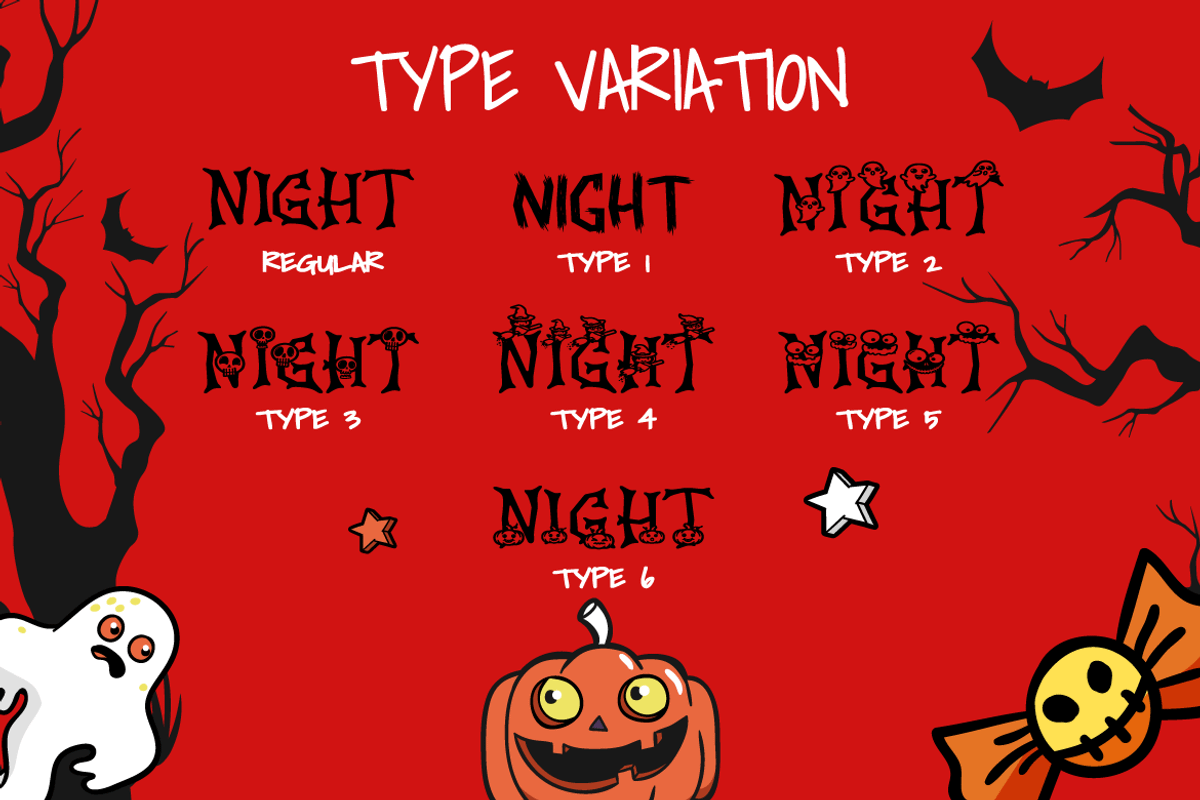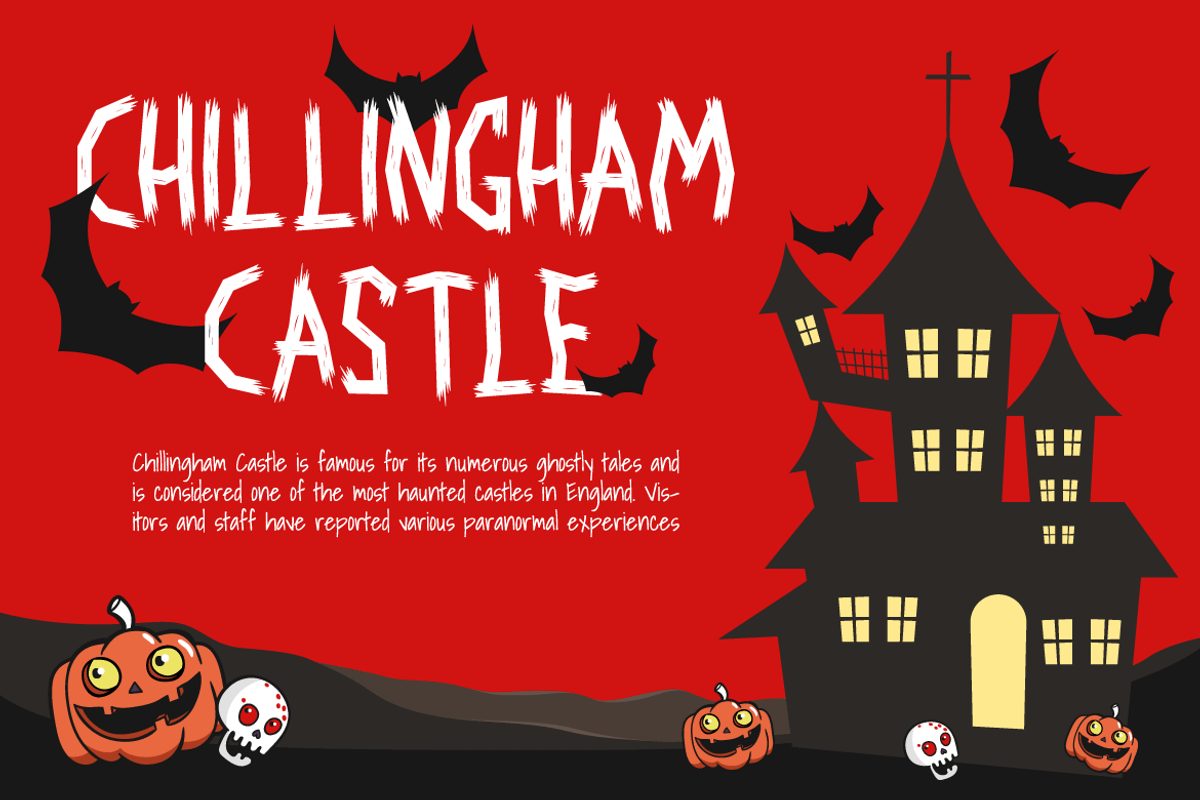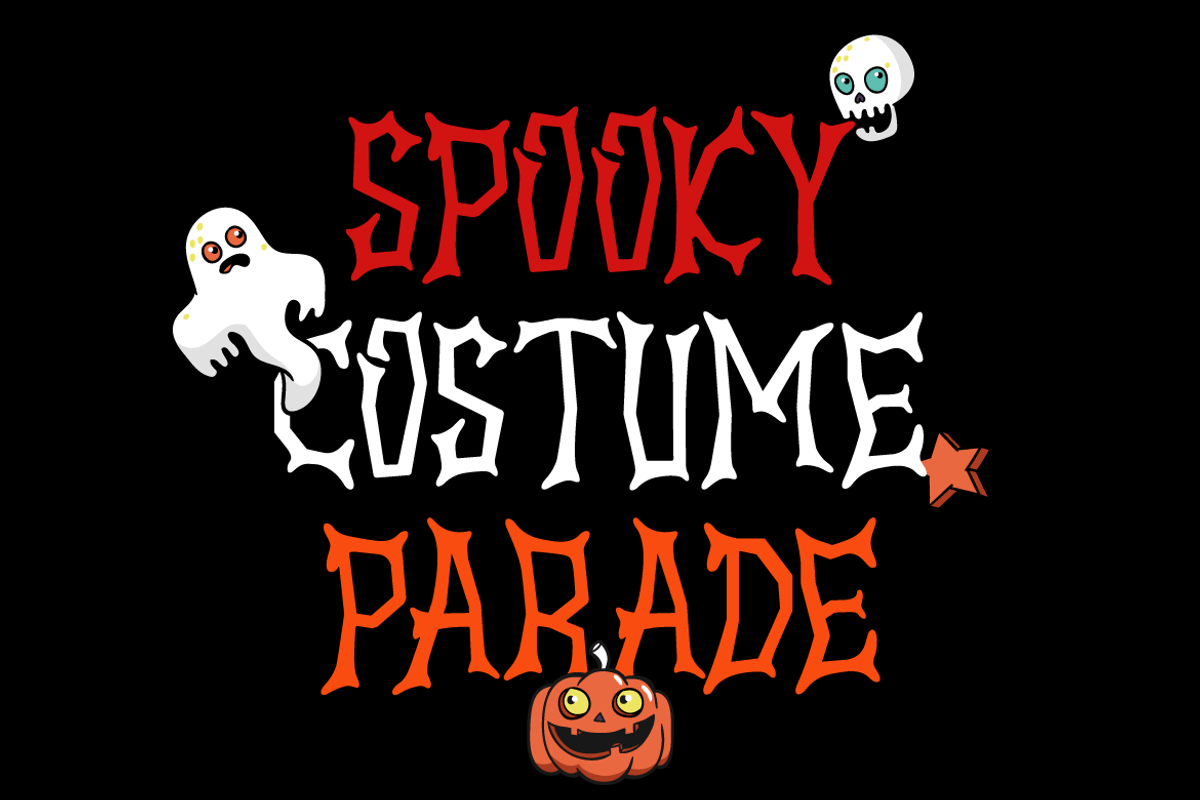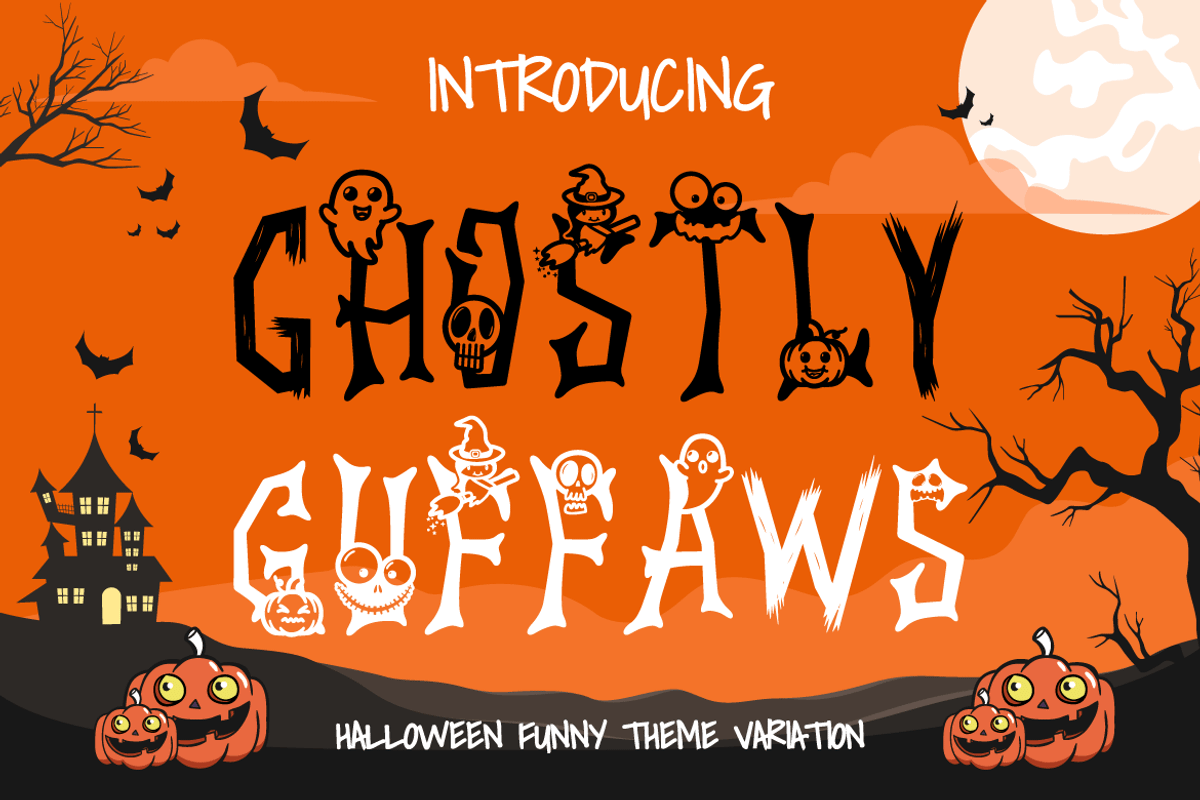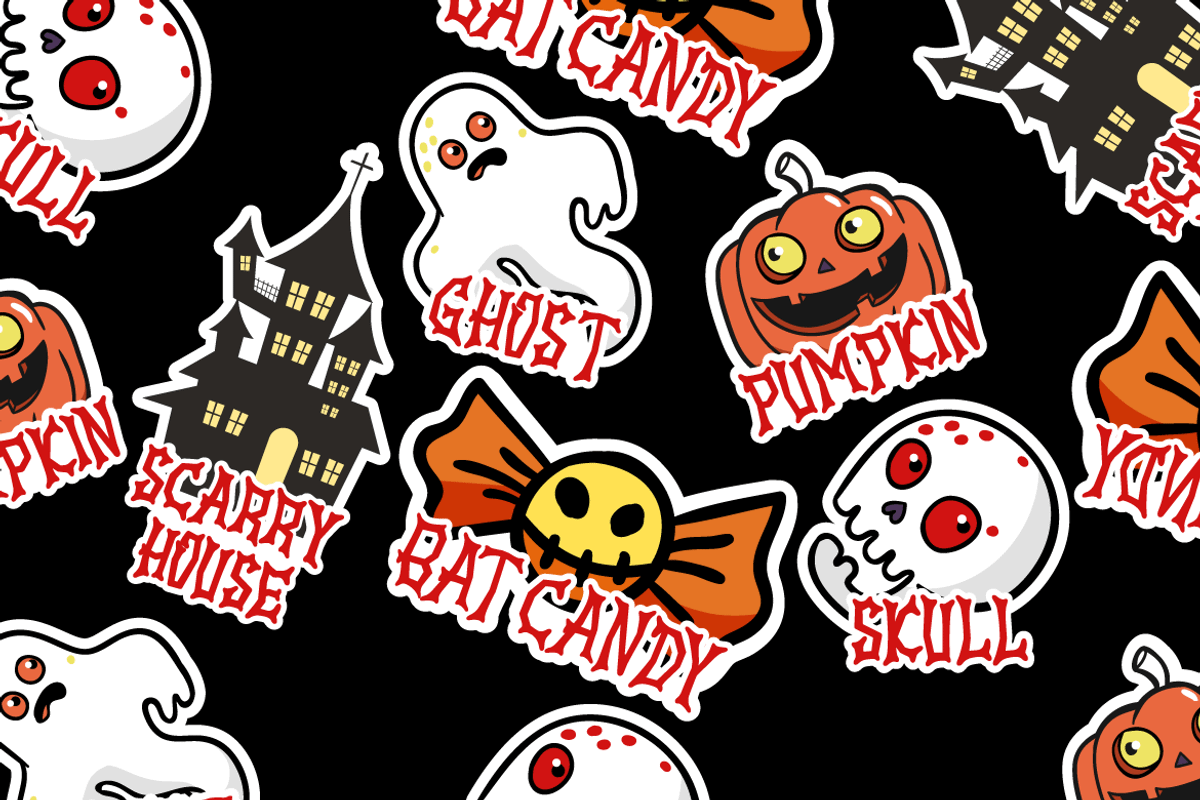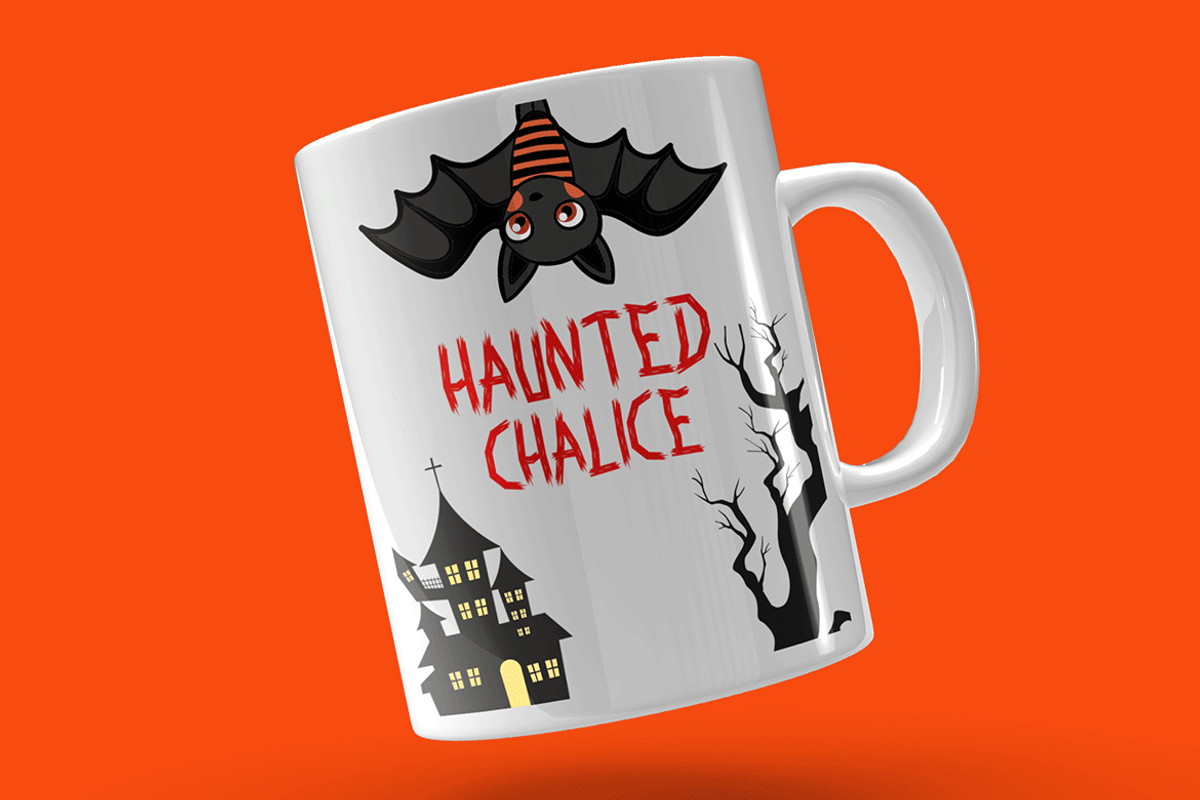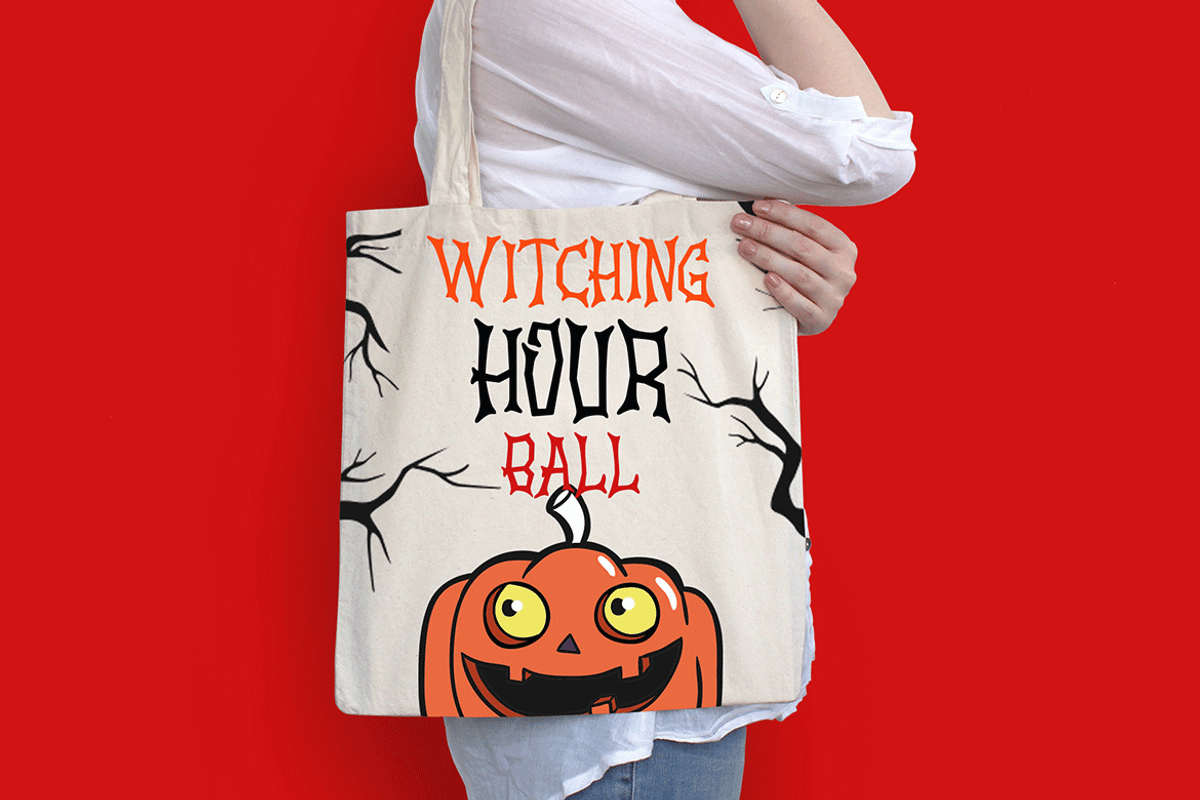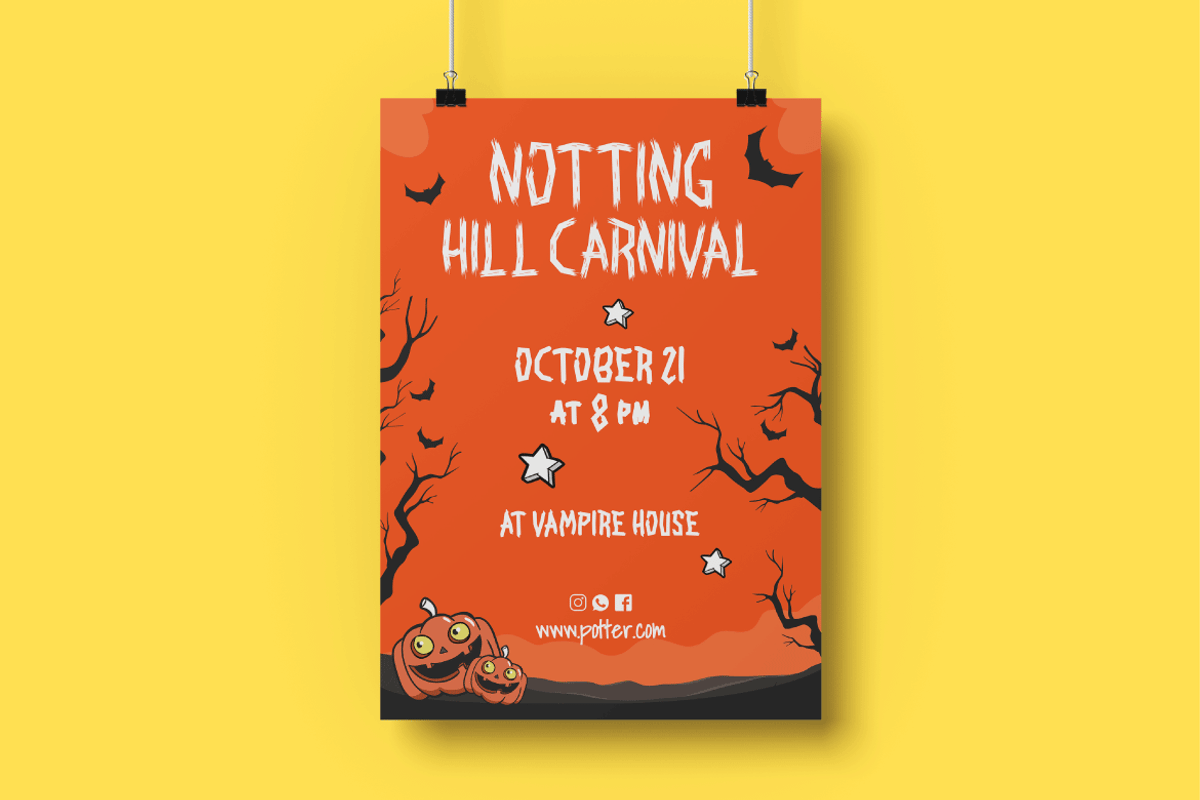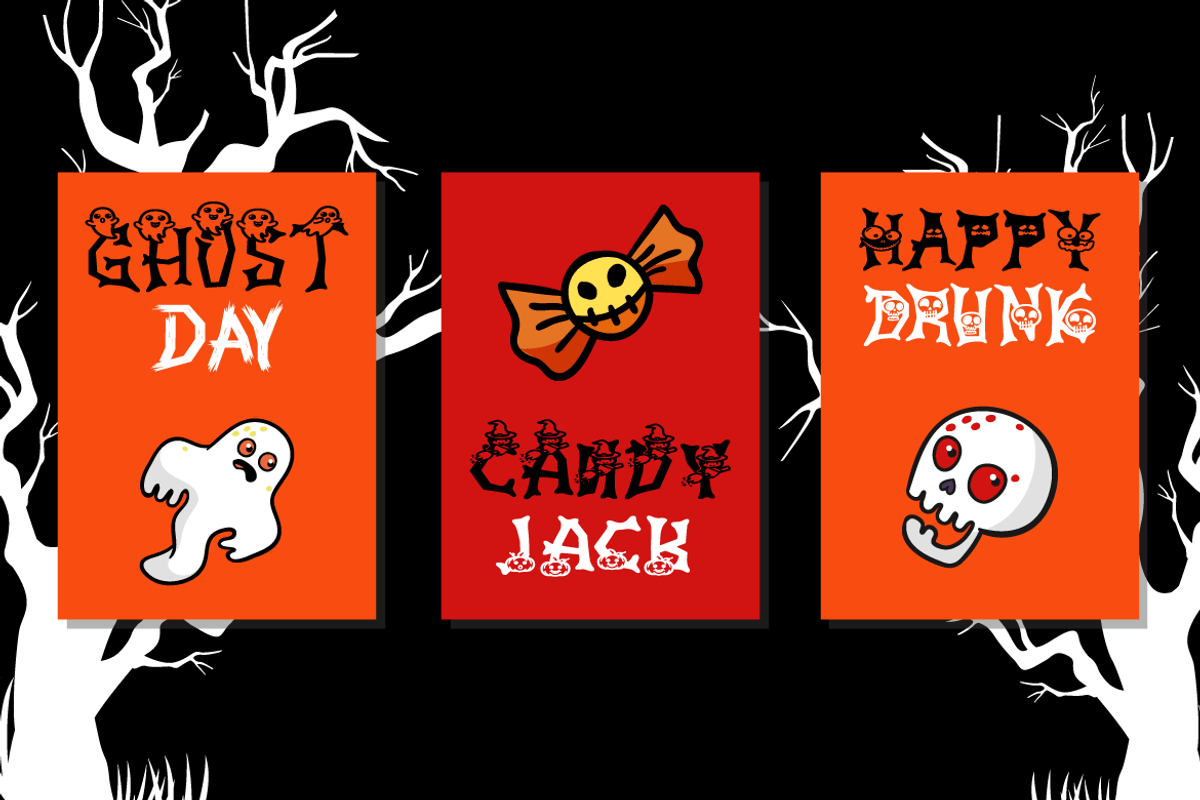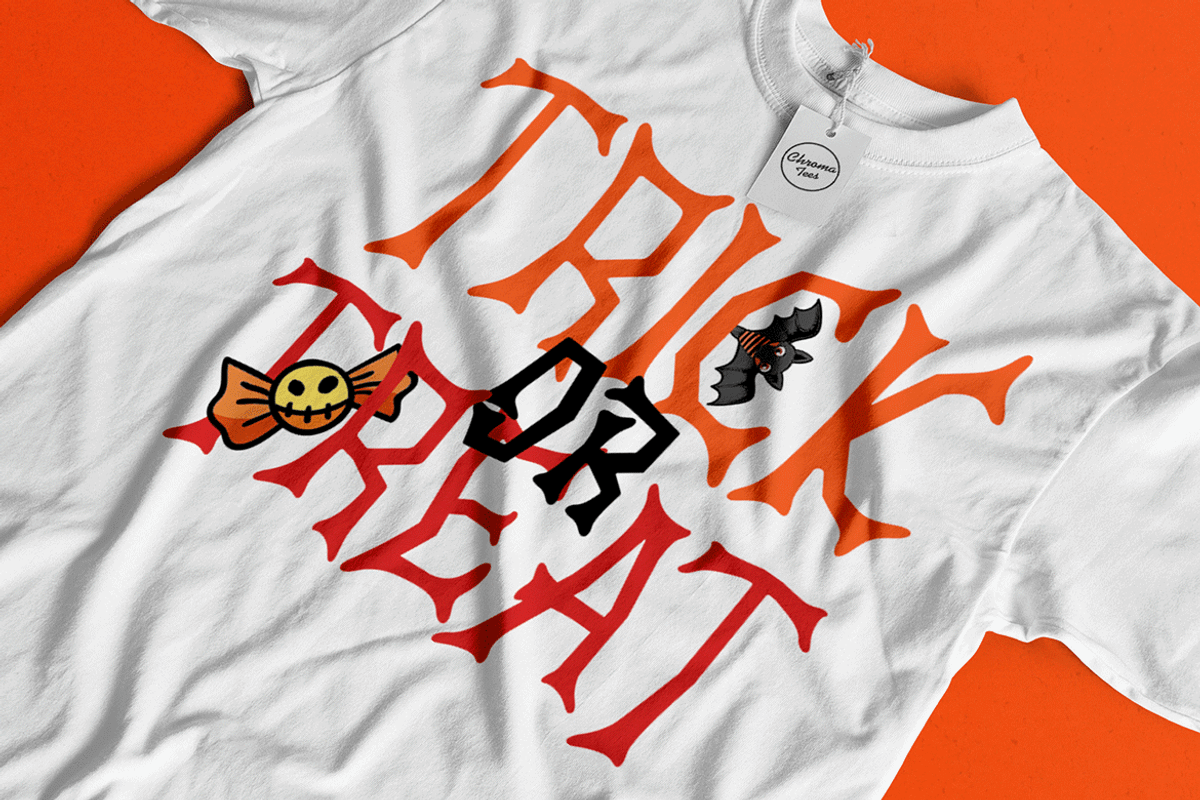
Ghostly Guffaws - Halloween Funny
Introducing Ghostly Guffaws, a Halloween Funny Theme Font that encapsulates the spooky yet playful spirit of Halloween. This unique display font, crafted with precision, is available in both OTF and TTF formats. Ghostly Guffaws is characterized by its all caps lettering, making it a perfect choice for bold and eye-catching headlines. With seven distinct variations tailored to fit the eerie theme, this font is versatile and adaptable.
Whether you’re designing logos or branding materials, Ghostly Guffaws adds a touch of whimsy and horror that’s bound to captivate your audience. It’s not just limited to Halloween; use it for children’s themes, crafting projects, invitations cards, packaging designs, posters titles, business signage, greeting cards stickers books magazines or any design needing a dash of creepy charm.